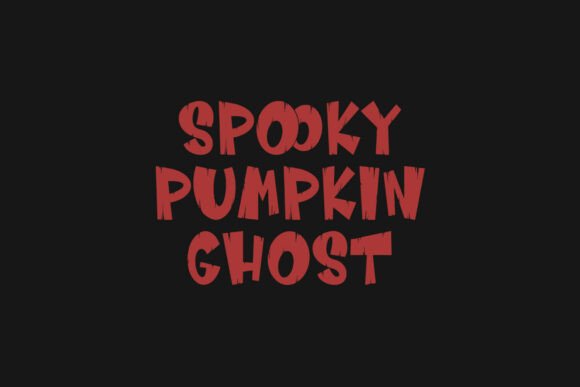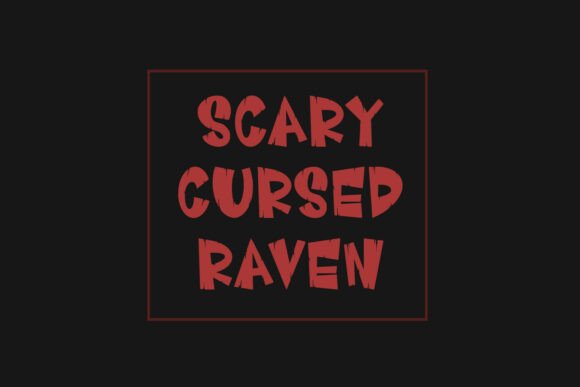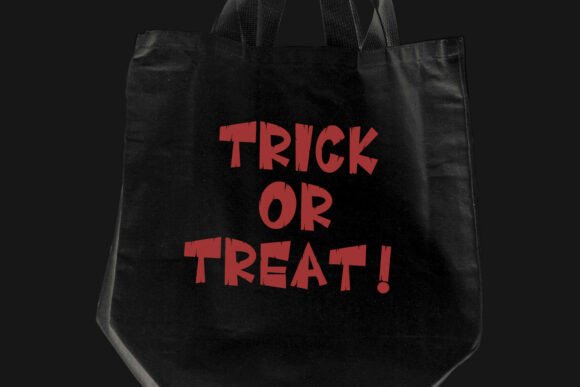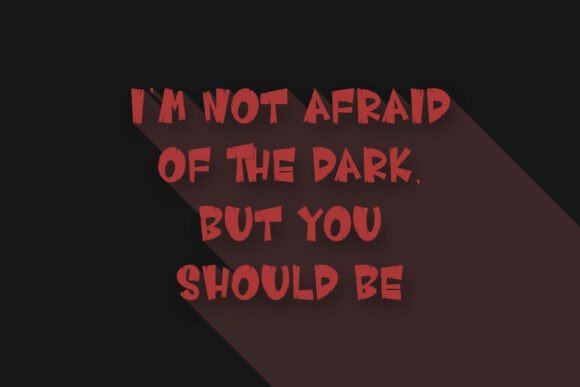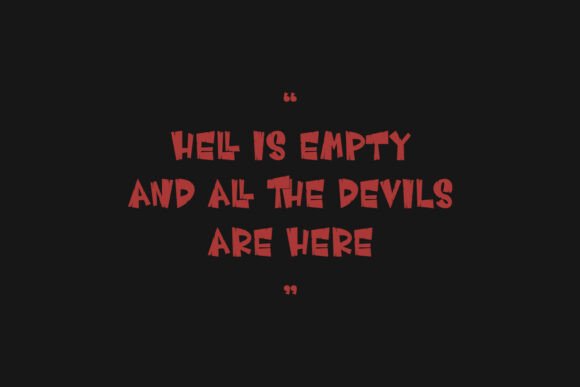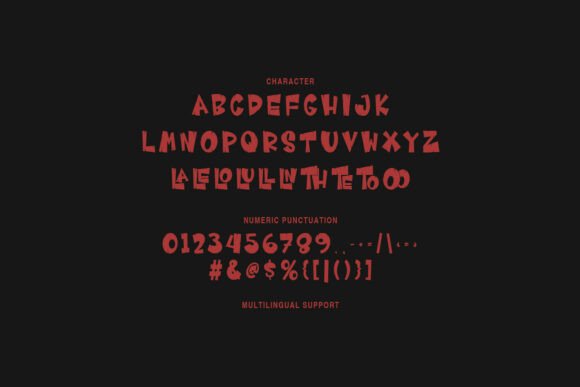
Introduction to Lnomar Font
Looking for the perfect font to create a chilling, spooky vibe.
Lnomar is a unique display font thatโs perfect for Halloween, horror themes, or any project that needs a touch of eerie charm With its rough, hand-carved look and uneven edges, this font captures the spirit of a haunted house or a scary story.
Key Features of Lnomar Font
Why Choose Lnomar Font?
Lnomar Font offers exceptional quality and versatility, making it a valuable addition to your design toolkit. Whether you’re creating for personal projects or commercial use, Lnomar Font delivers professional results.